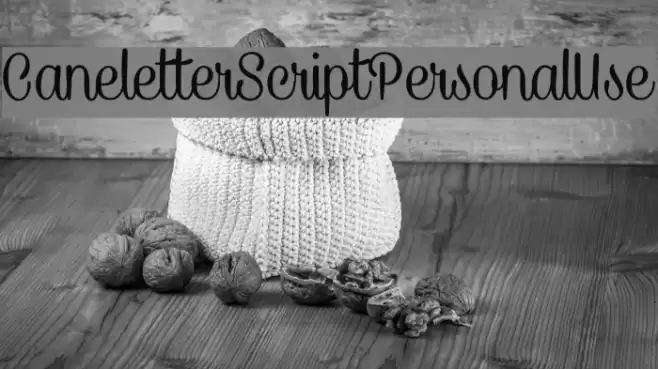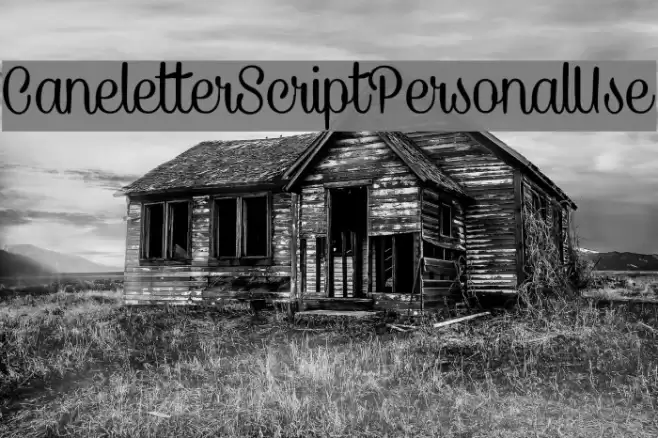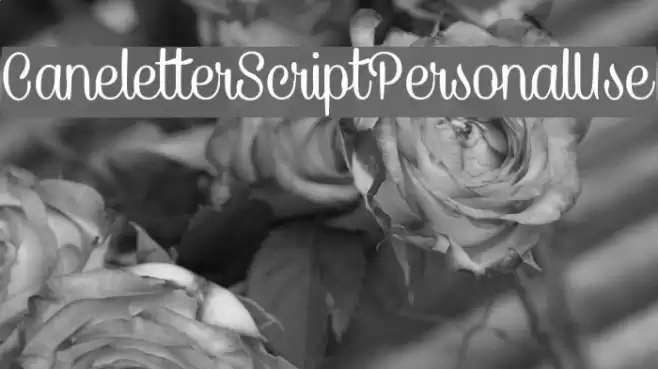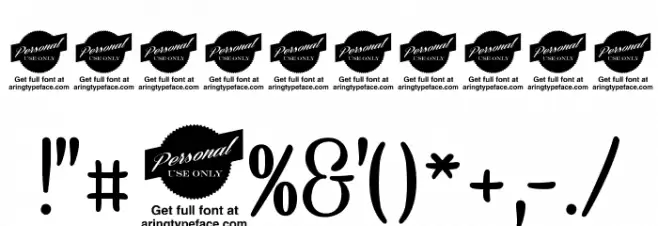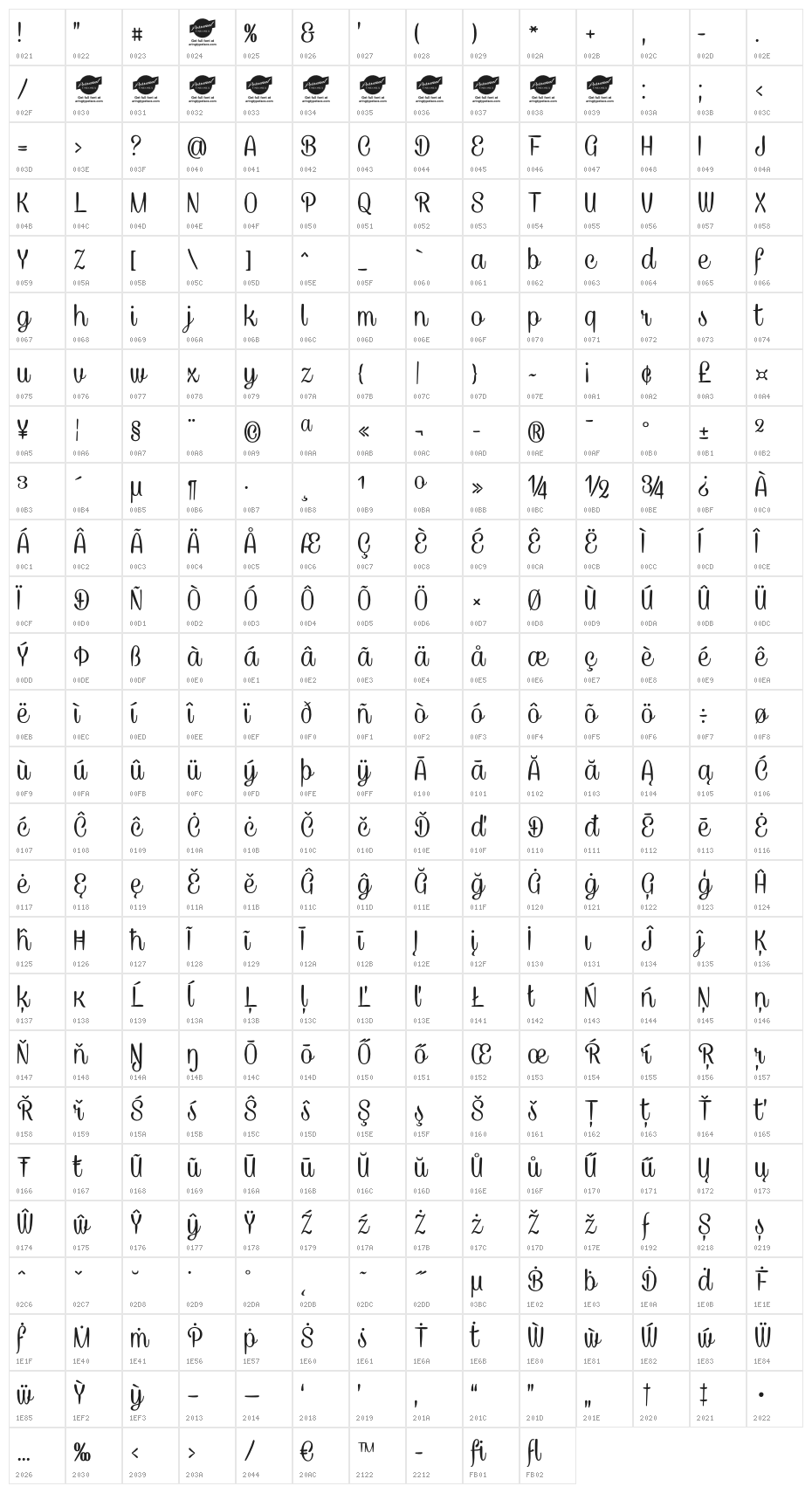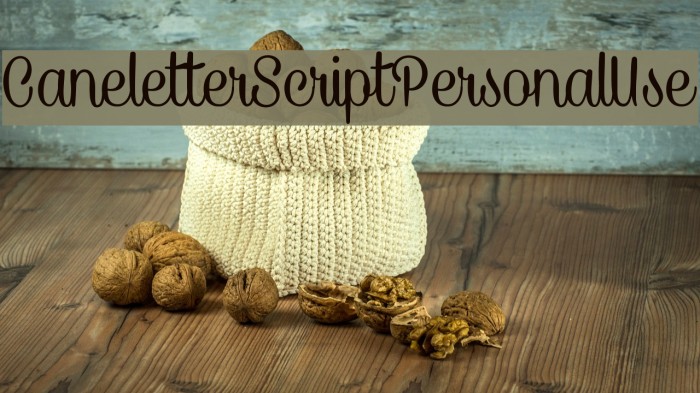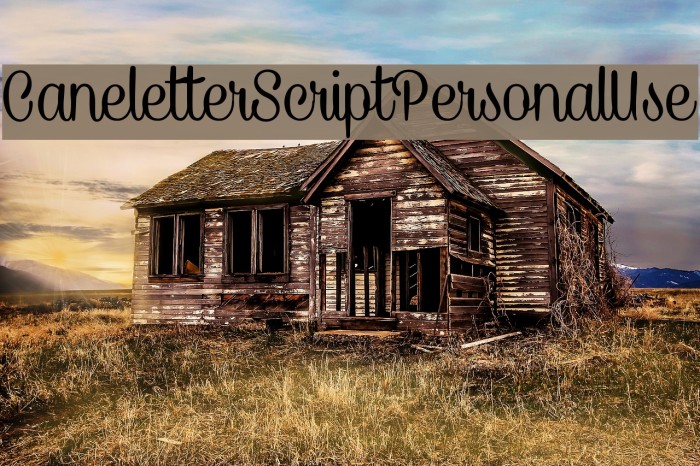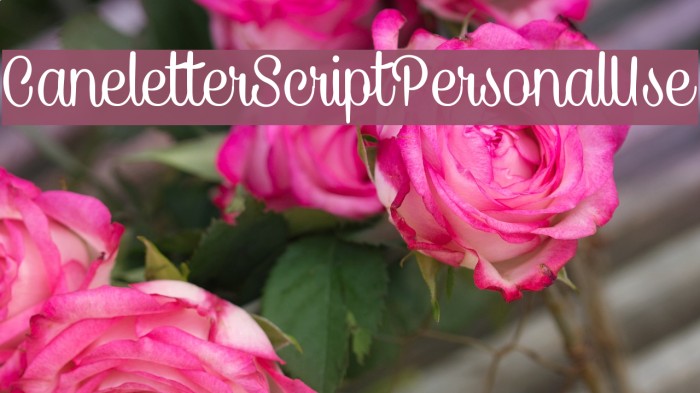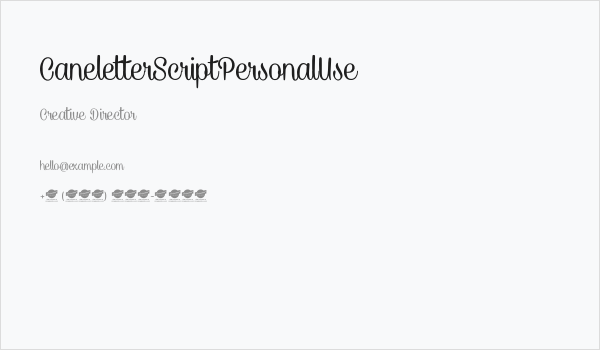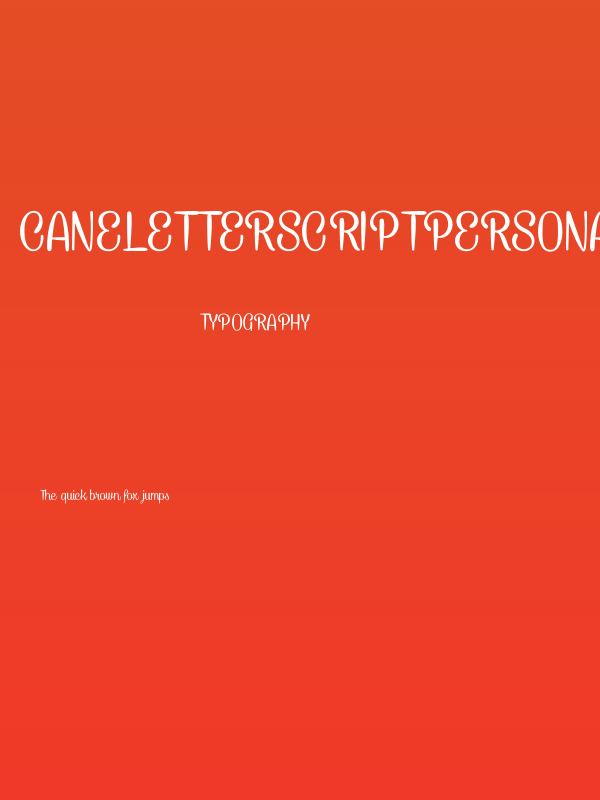
CaneletterScriptPersonalUse Font
CaneletterScriptPersonalUse Description
This font features a playful and flowing script style, characterized by its smooth, connected letters that mimic the fluidity of handwriting. The uppercase letters are bold and slightly elongated, while the lowercase letters maintain a consistent height, adding to the font's legibility. The strokes are moderately thick, providing a balanced contrast that enhances readability without sacrificing its decorative appeal. The font includes a full set of uppercase and lowercase letters, numerals, and a variety of special characters, making it versatile for various design needs.
A playful and flowing script font with smooth, connected letters from Uncategorized fonts.
- Proposed Projects: Ideal for greeting cards, invitations, logos, and branding materials that require a personal touch.